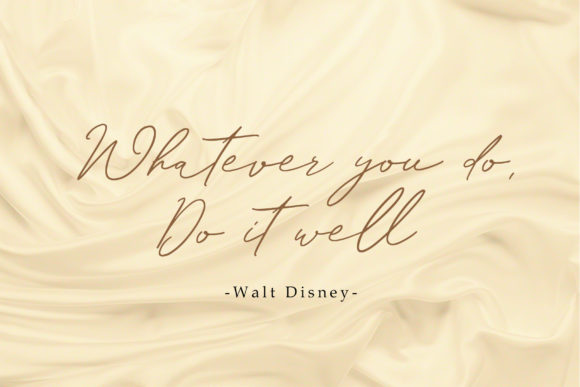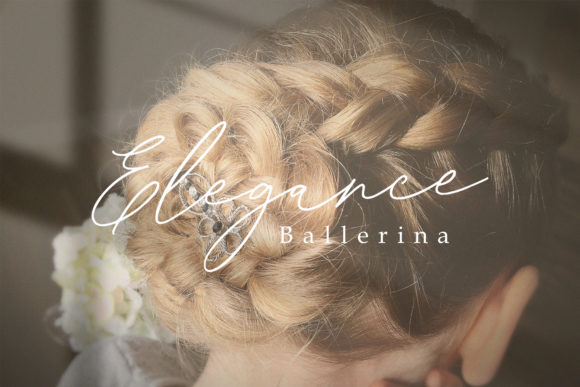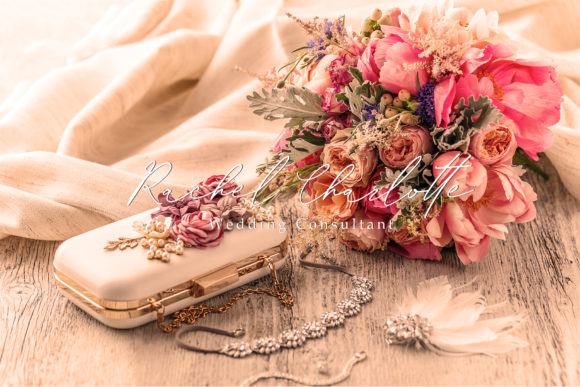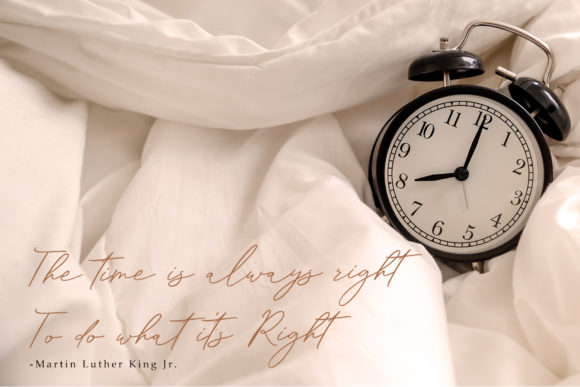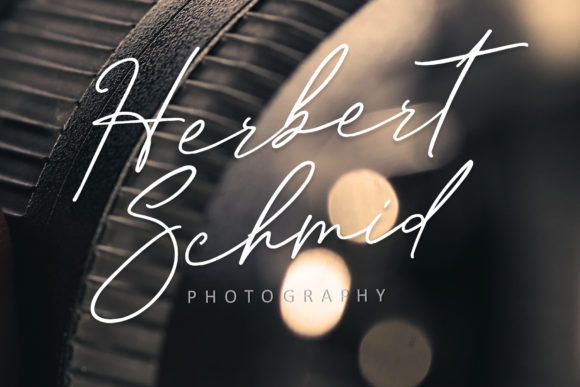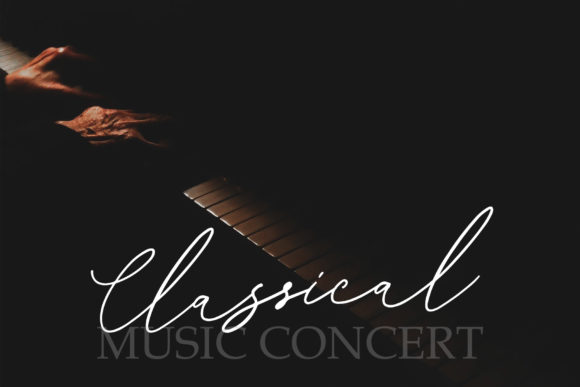
Introduction to Sachlette Signature Font
Sachlette Signature is a stylish and incredibly elegant script font.
Key Features of Sachlette Signature Font
Why Choose Sachlette Signature Font?